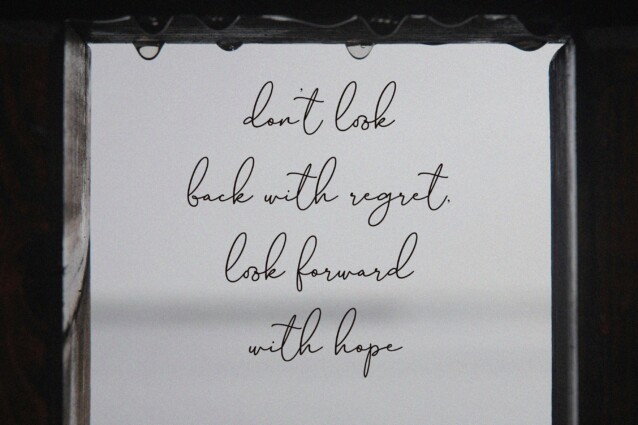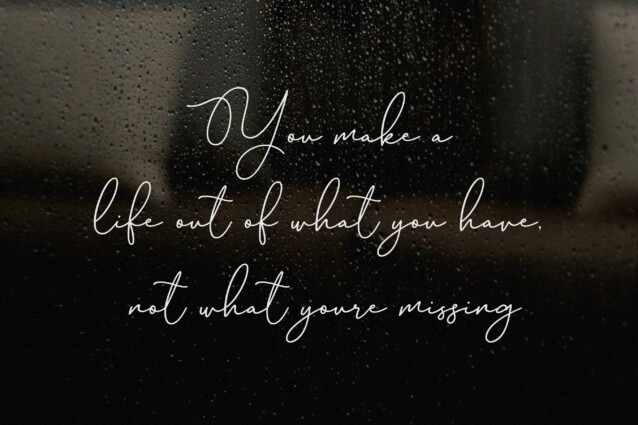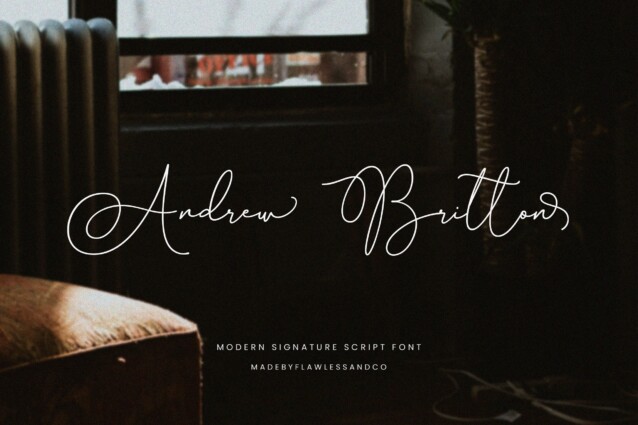
Andrew Britton Font
Andrew Britton Font is a modern, casually and feminine handwritten typeface. Inspired by the graceful flow of calligraphy, Andrew Britton adds a touch of sophistication and romance to your wedding designs, capturing the essence of your love story in a way that will leave a lasting impression.
There’s some connected letters and some alternates that suitable for any graphic designs such as branding materials, t-shirt, print, business cards, logo, poster, t-shirt, photography, quotes .etc